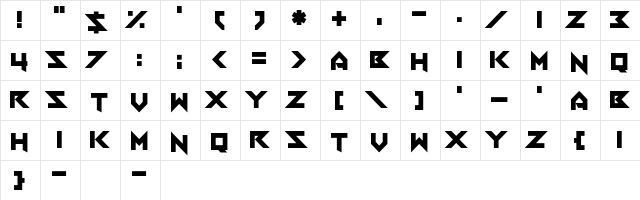
Sacred Hertz Straight Regular
Design Context for Sacred Hertz Straight Typeface
Sacred Hertz Straight is a composed and adaptable typeface that performs quietly and consistently across a wide range of design contexts.
Pro Tip: Use Sacred Hertz Straight in both headline and body roles to test its range before committing to a single application.